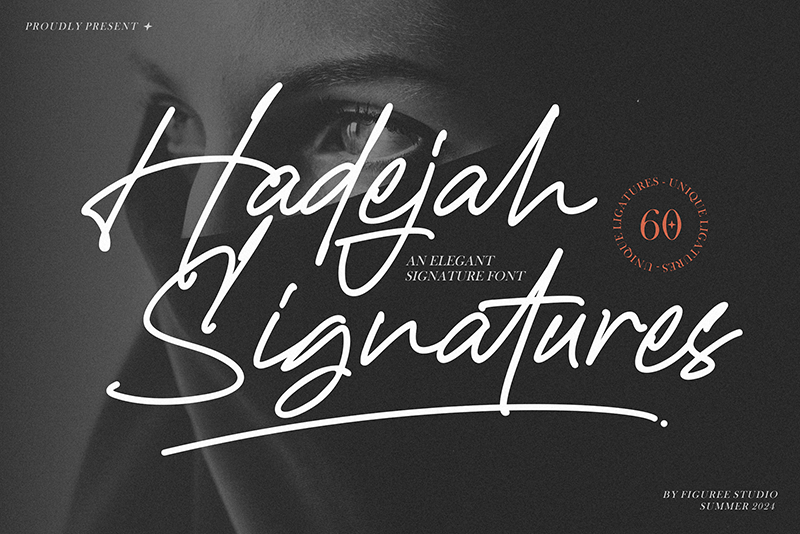
Hadejah Signatures Font
Designed by Figuree Studio
About Hadejah Signatures
Introducing Hadejah – the ultimate Elegant Signature Font that brings sophistication and refinement to your creative projects. With its graceful strokes and exquisite design, Hadejah is perfect for adding a touch of luxury and personal flair to your work.